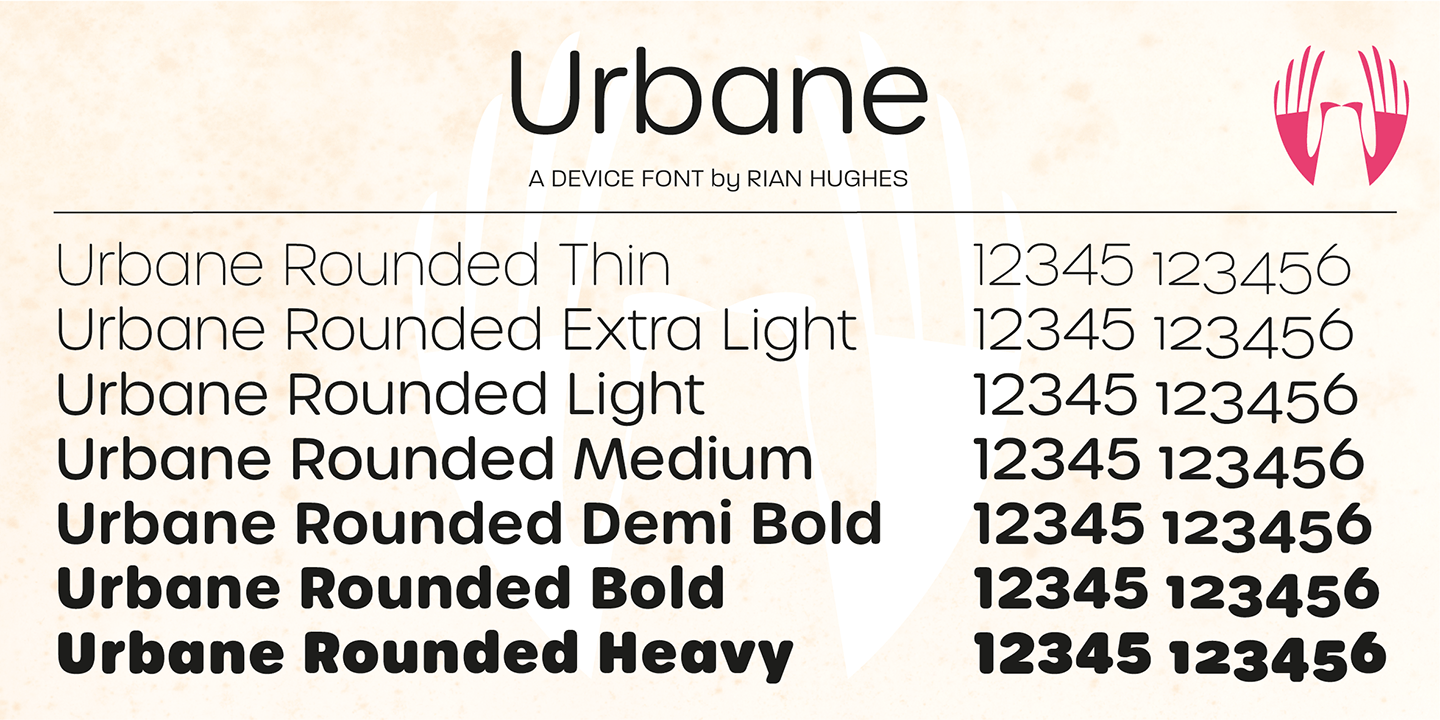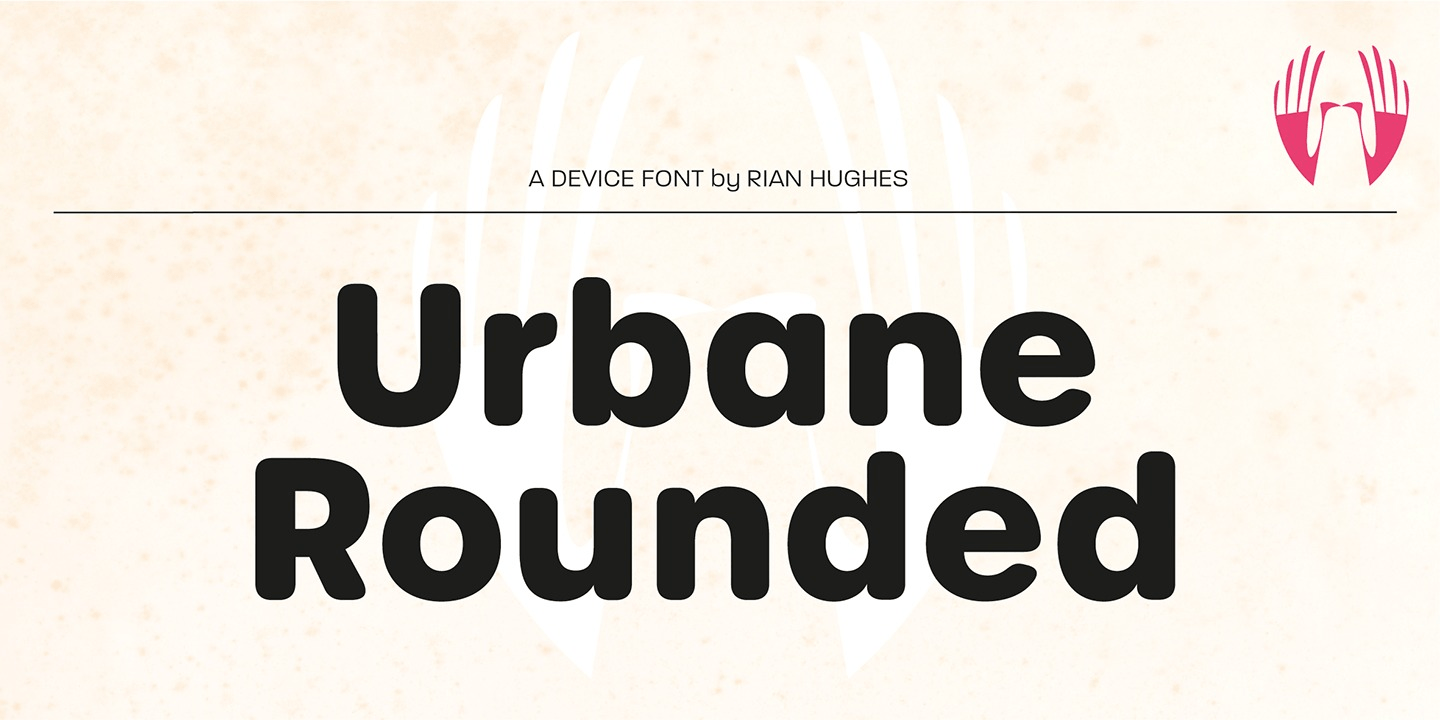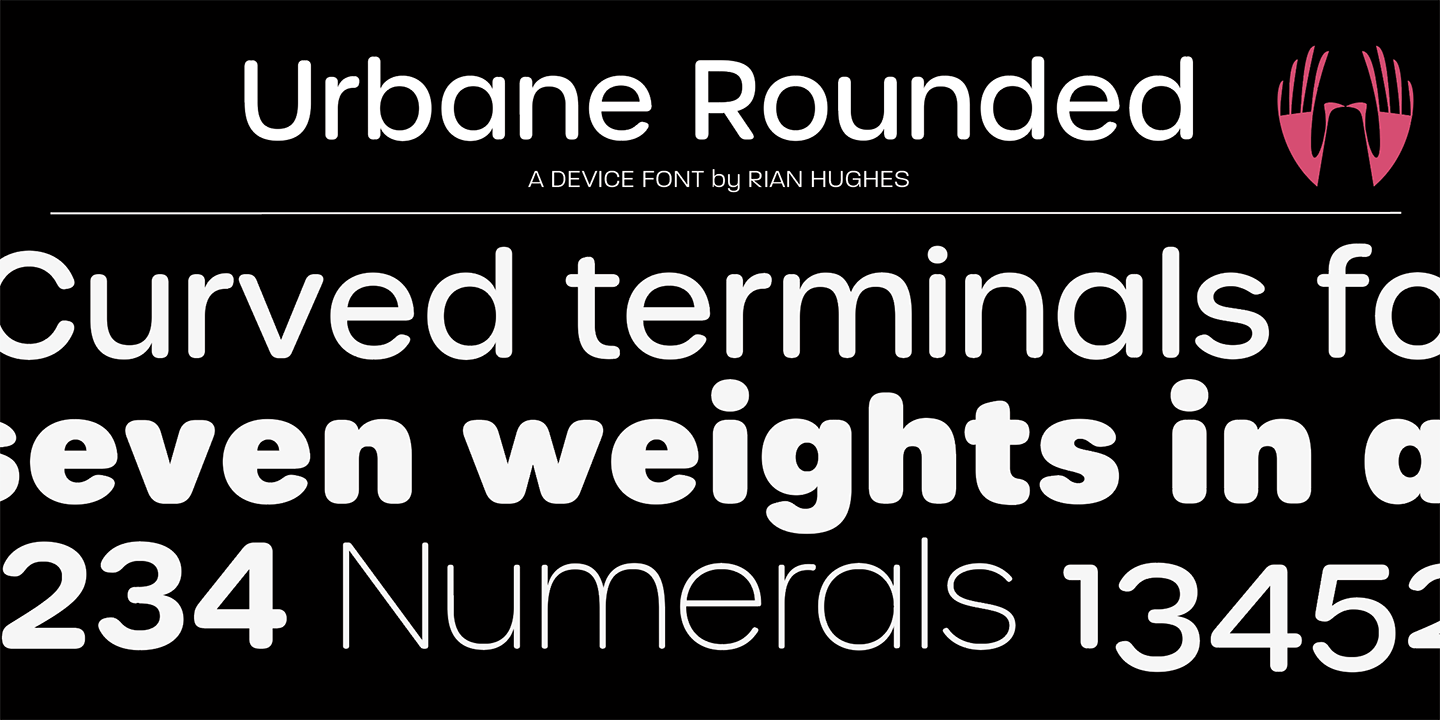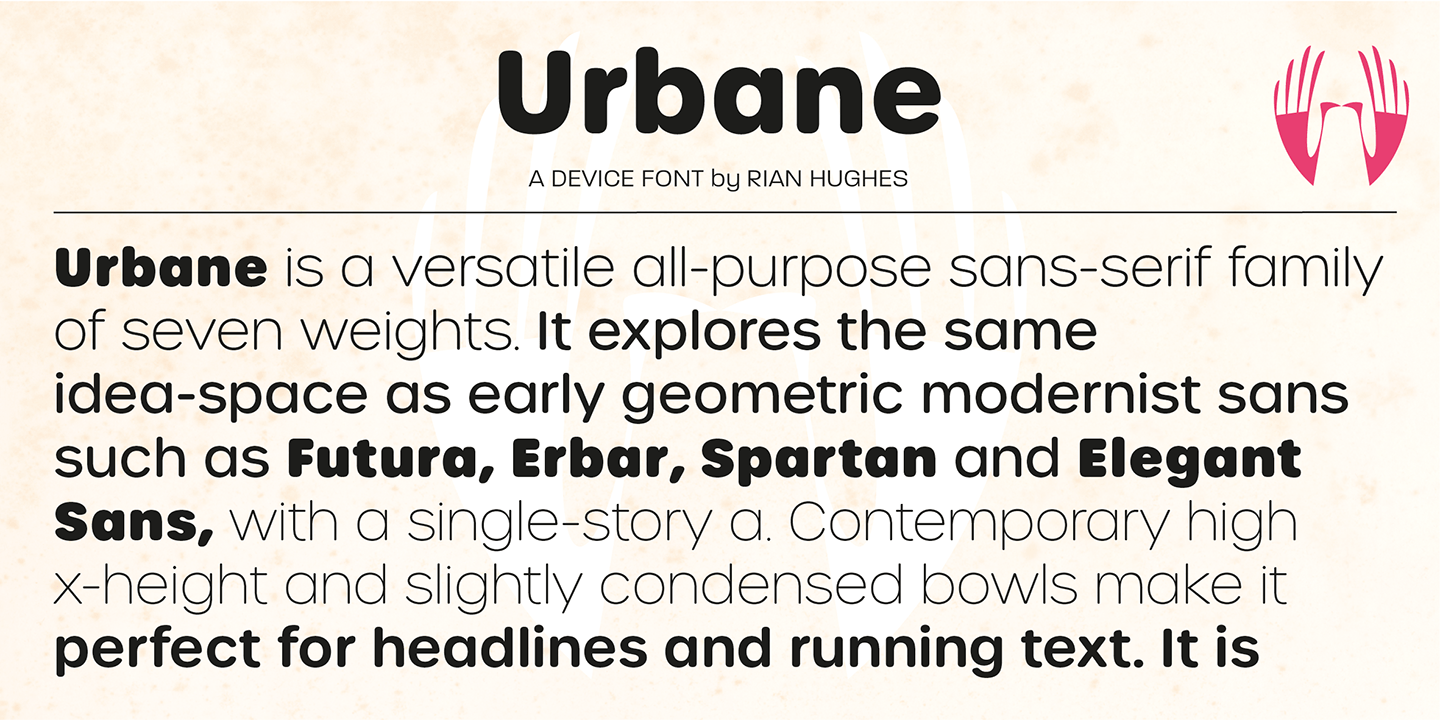
Urbane Rounded
Urbane Rounded is a curved, friendly version of Urbane, a versatile all-purpose sans-serif family of six weights plus italics. It explores the same idea-space as early geometric modernist sans such as Futura, Erbar, Spartan and Elegant Sans, with a single-story…